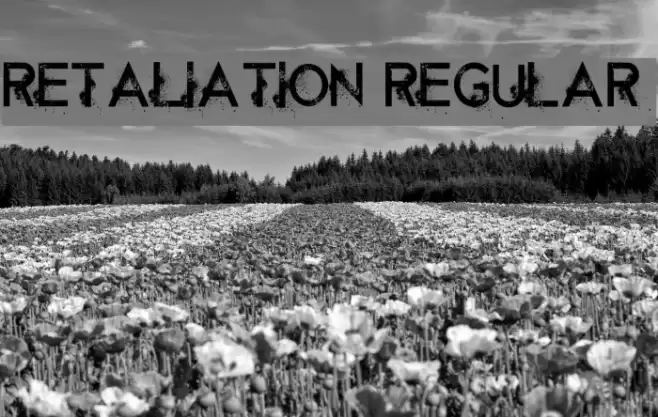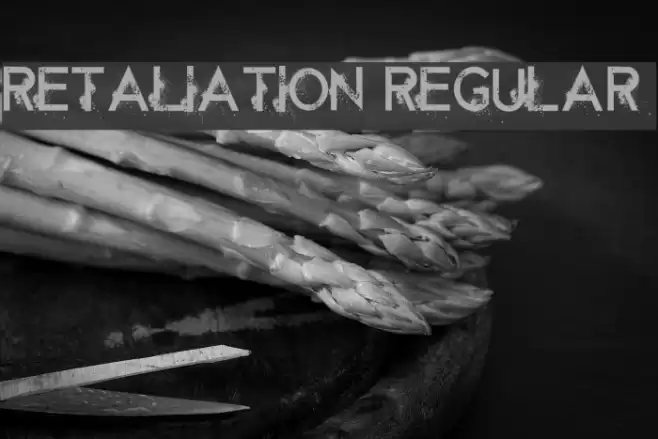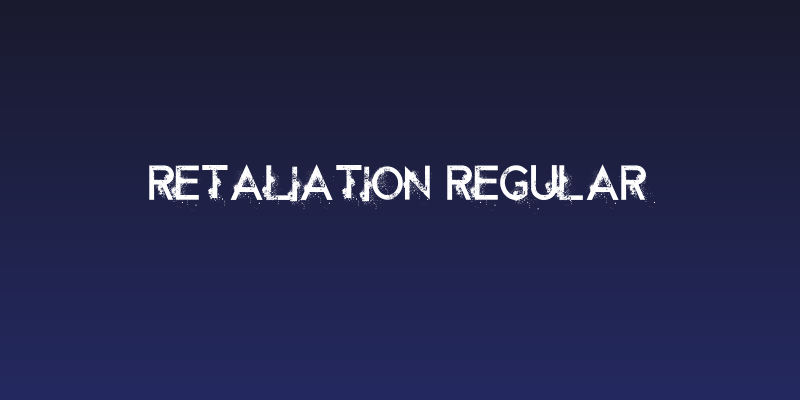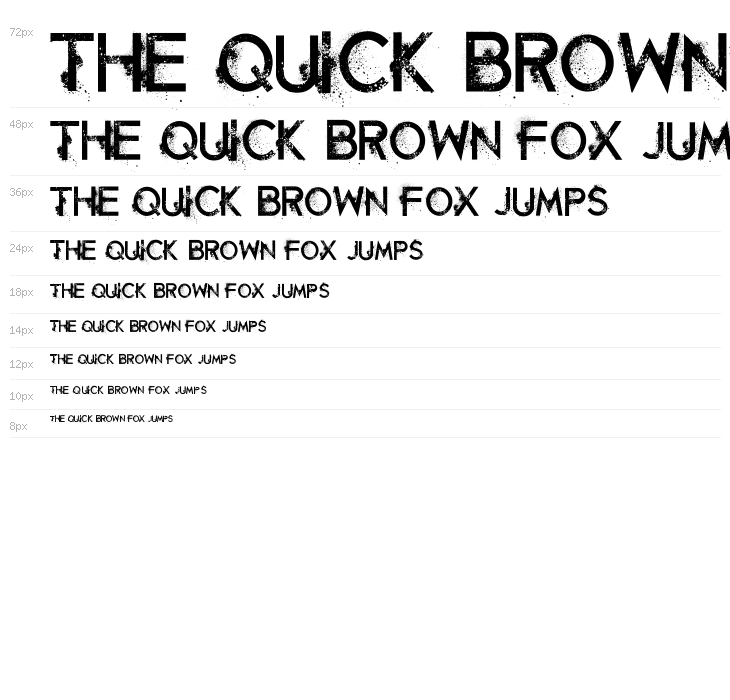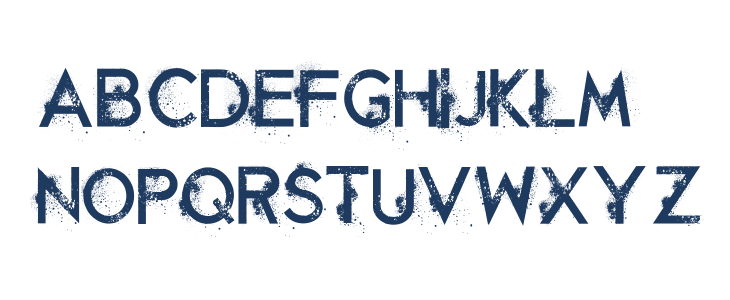
Retaliation Regular Font
Retaliation Regular Description
This font features a distressed, grunge aesthetic with a bold and impactful presence. The characters are designed with a rough, textured appearance, giving them a worn and weathered look. The uppercase letters are uniform in height, maintaining a strong and consistent baseline. The design incorporates irregular edges and a speckled texture, adding to its rugged and edgy style. This font is ideal for projects that require a bold statement and a touch of rebelliousness, such as posters, album covers, or branding for alternative or rock-themed events.
| Overall Style | Grunge, Edgy, Distressed |
| Proposed Projects | Perfect for music album covers, edgy posters, alternative event branding, and rebellious-themed designs. |